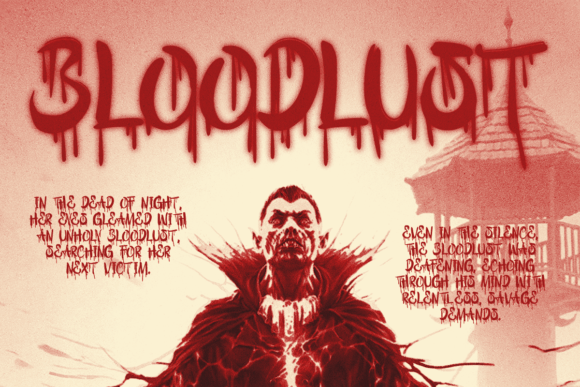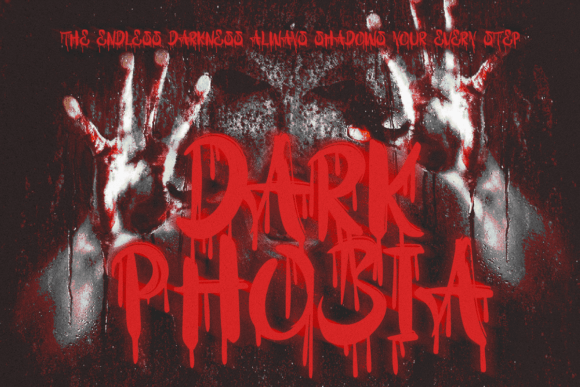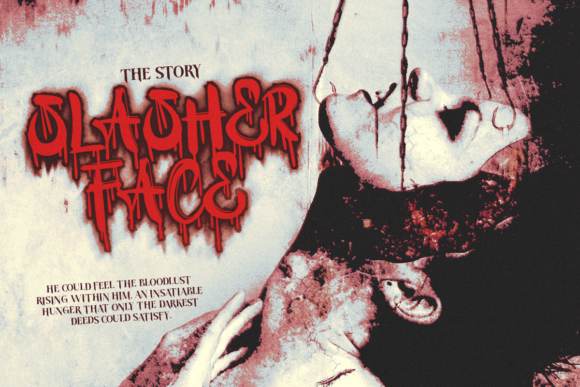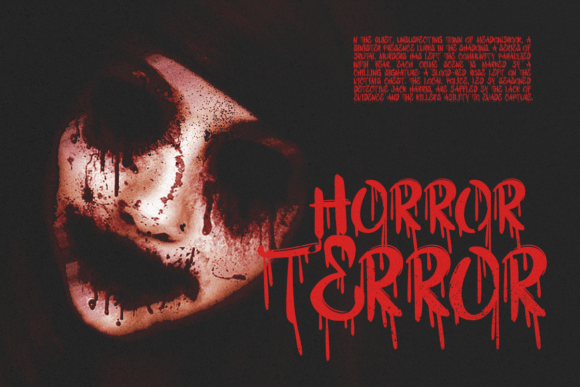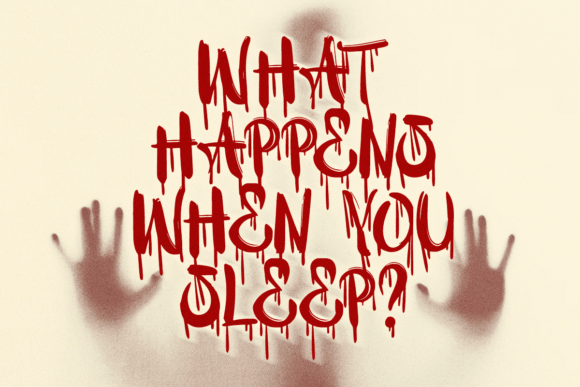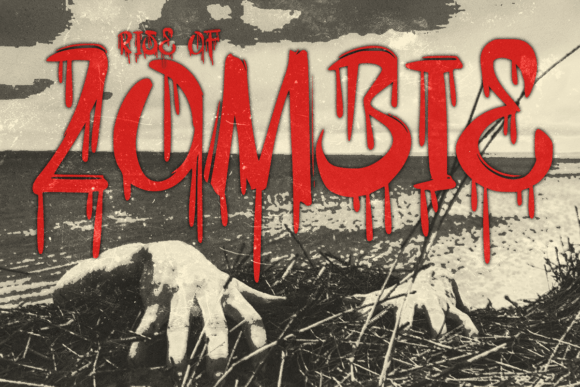
Introducing Bloody Shout: The Ultimate Horror Display Font for Your Spookiest Designs
Are you ready to add a dash of horror and a pinch of festive charm to your designs? Look no further than Bloody Shout, a bloody horror display font that is sure to make your Halloween-themed projects stand out. This font is perfect for designers and crafters who want to create spine-chilling posters, eerie invitations, and spooky social media graphics that will leave a lasting impression on their audience.
The Perfect Blend of Readability and Wicked Fun
Bloody Shout combines the readability of modern fonts with a wickedly fun and dripping effect that is sure to add a touch of mystery and excitement to any project. The font’s unique design makes it perfect for a wide range of applications, from horror-themed party invitations to spooky seasonal graphics. Whether you’re creating a poster for a haunted house, a social media graphic for a Halloween party, or a creepy invitation for a monster mash, Bloody Shout is the perfect choice.
What Makes Bloody Shout So Special?
So, what sets Bloody Shout apart from other horror display fonts? Here are just a few features that make it a must-have for designers and crafters:
- Unique Dripping Effect: The font’s dripping effect gives it a creepy, bloody look that is sure to add a touch of horror to any design.
- High Readability: Despite its creepy appearance, Bloody Shout is highly readable, making it perfect for use in a wide range of applications.
- Wickedly Fun: The font’s playful, fun design makes it perfect for use in Halloween-themed designs, from party invitations to spooky social media graphics.
- Versatile: Bloody Shout can be used in a wide range of applications, from posters and invitations to social media graphics and more.
How to Use Bloody Shout in Your Designs
Using Bloody Shout in your designs is easy. Here are a few tips to get you started:
- Pair it with Other Fonts: Bloody Shout looks great when paired with other fonts, such as sans-serif fonts or script fonts.
- Use it for Headlines: The font’s bold, dripping effect makes it perfect for use in headlines and titles.
- Add Some Texture: Adding some texture to your design can help to give it a more creepy, horror-themed feel.
- Experiment with Colors: Bloody Shout looks great in a wide range of colors, from bright reds and oranges to dark blacks and purples.
Examples of Bloody Shout in Action
Here are a few examples of how Bloody Shout can be used in your designs:
- Horror Movie Poster: Use Bloody Shout to create a spine-chilling poster for a horror movie.
- Halloween Party Invitation: Create a creepy invitation for a Halloween party using Bloody Shout.
- Spooky Social Media Graphic: Use Bloody Shout to create a spooky social media graphic for a Halloween-themed post.
If you’re looking for a font that will add a touch of horror and a dash of festive charm to your designs, look no further than Bloody Shout. This bloody horror display font is perfect for designers and crafters who want to create spine-chilling posters, eerie invitations, and spooky social media graphics that will leave a lasting impression on their audience. With its unique dripping effect, high readability, and wickedly fun design, Bloody Shout is the perfect choice for any Halloween-themed project.